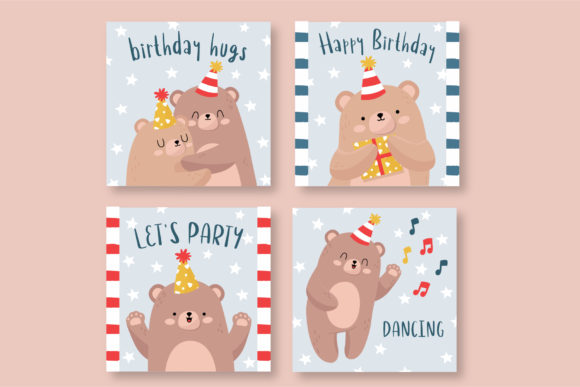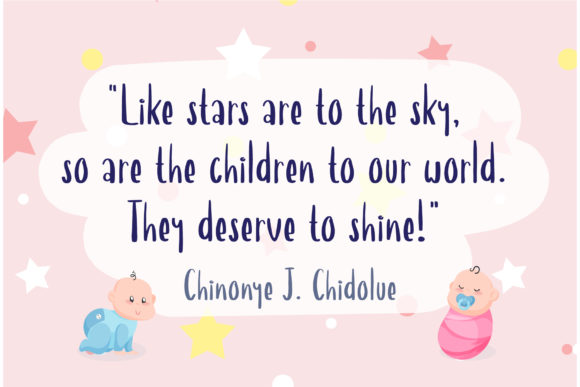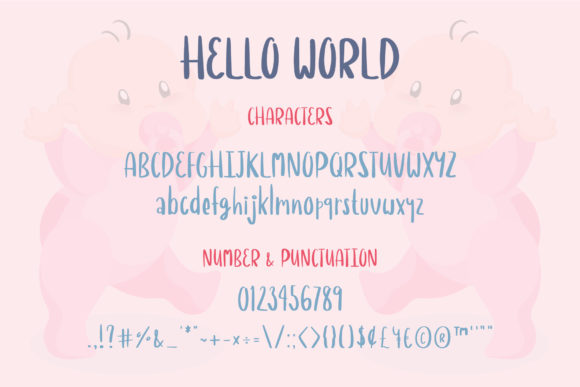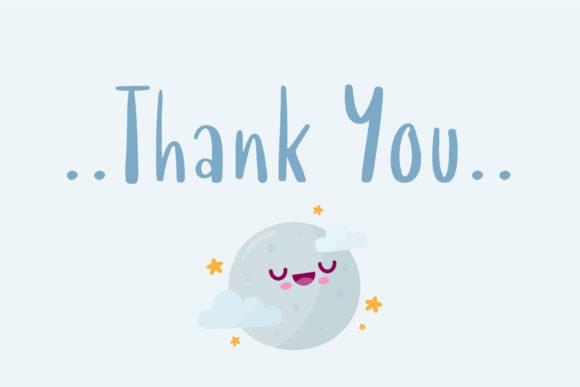
Hello World Font
About Hello World Font
Hello World is a sweet and friendly handwritten font. Masterfully designed to become a true favorite, this font has the potential to bring each of your creative ideas to the highest level!